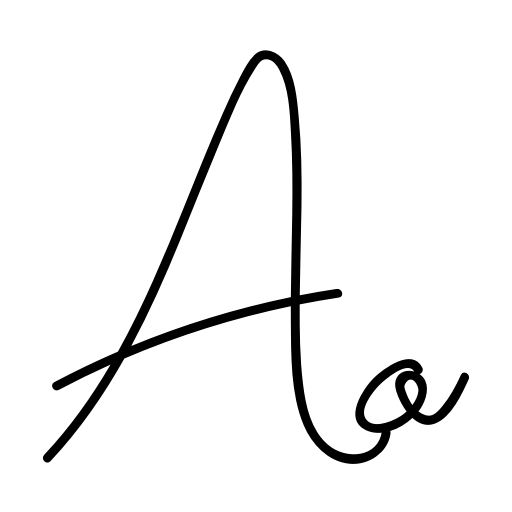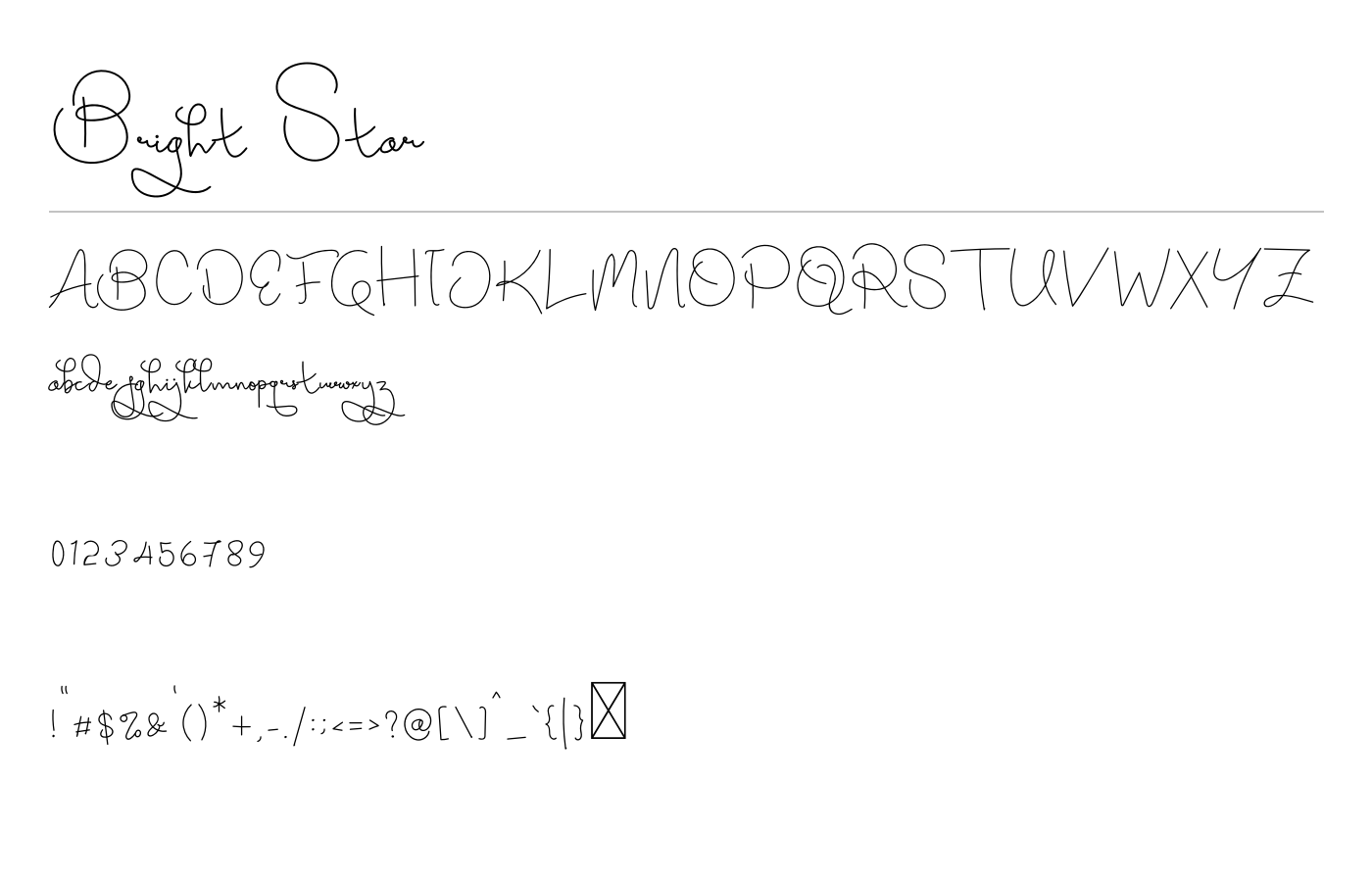
Bright Star is a delicate and whimsical handwritten script font with slender strokes and elegant flourishes, exuding a light and airy feel. Its fine, playful letterforms blend casual charm with a touch of sophistication, making it ideal for creative branding, invitations, and feminine design projects that seek a personal, artistic touch. This font shines best in display settings where its intricate details and graceful style can truly stand out.
Bright Star Font
About Bright Star Font